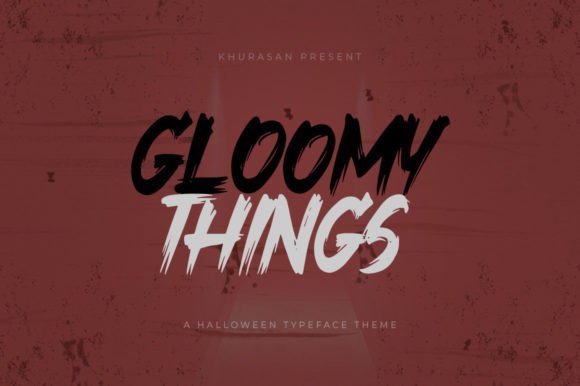
Unleash the Darkness with the Gloomy Things Font
There’s nothing quite like that spark of creativity that hits you in the middle of the night, as you’re scrolling through your favorite design communities. You stumble upon a peculiar font that sends shivers down your spine, and suddenly, your next project takes shape. For many designers, that moment of inspiration came when they discovered the Gloomy Things Font – a unique and captivating display font that’s perfect for conjuring up eerie atmospheres.
The Gloomy Things Font is more than just a quirky addition to your design arsenal. Its versatility and bold, haunting aesthetic make it an invaluable tool for designers looking to create immersive experiences, especially in the realm of horror and Halloween-themed concepts. Whether you’re crafting a spine-tingling advertisement or a haunting visual novel, this font is sure to set the tone for a chilling encounter.
Gloomy Things Font Key Features
- Font Family: Gloomy Things, Gloomy Things Regular, Gloomy Things Italic, Gloomy Things Bold, Gloomy Things Bold Italic
- Unique Characteristic: The font features a unique, eerie, and mystical aesthetic with intricate details and textures
Gloomy Things Font Review
At first glance, the Gloomy Things Font seems to be a great addition to any designer’s toolkit. ✨ The font’s eerie and mysterious vibe is perfect for projects that need a touch of the macabre or the supernatural. The designer has done an excellent job of creating a cohesive and well-designed font family that is both versatile and effective.
Some of the strengths of the Gloomy Things Font include:
- Highly customizable: The font offers a range of weights and styles that can be used to create a wide range of effects.
- Well-designed glyphs: Each character in the font has been carefully crafted to ensure that it looks great in a variety of contexts.
- Works well with other fonts: The Gloomy Things Font can be easily paired with other fonts to create a unique and eye-catching look.
However, there are a few limitations to the Gloomy Things Font that are worth noting ⚠️:
- Limited language support: The font may not support all languages, which could be a problem for designers who need to work with non-English text.
- Not suitable for small text: The font’s intricate design may make it difficult to read in small sizes, which could be a problem for designers who need to use it in headings or body text.
Overall, the Gloomy Things Font is a great choice for designers who need a font that can add a touch of the unknown to their projects. While it may have some limitations, it is a well-designed and highly customizable font that is sure to impress.
Tips: Use Gloomy Things Font for dark and moody designs, and pair it with contrasting colors to make it stand out.
Tips: Use Gloomy Things Font to add a touch of eeriness to your designs, and experiment with layer blending modes to achieve unique effects.
Tips: Use Gloomy Things Font to add a touch of sophistication to your presentations or documents, and pair it with bold colors to make it stand out.
Gloomy Things Font is perfect for:
- Horror-themed designs
- Dark fantasy art
- Mysterious and suspenseful stories
- Creepy and eerie illustrations
Tips: Experiment with Gloomy Things Font in different contexts to find the perfect use